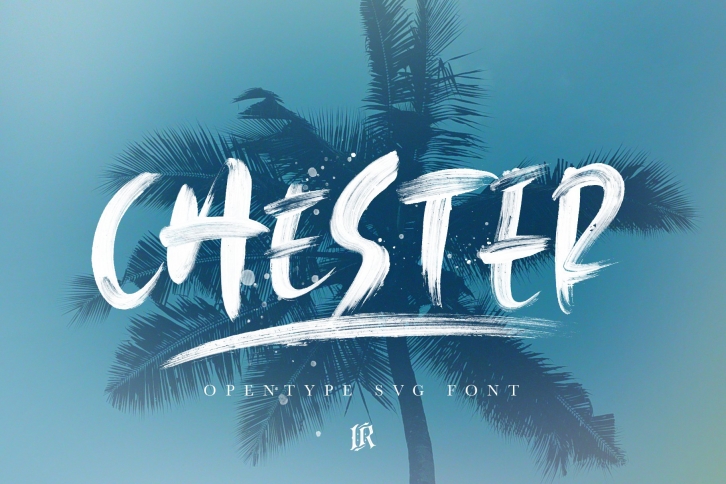
Chester SVG Font preserves all the high definition detail of the original handwritten letters. Using OpenType-SVG technology it truly looks realistic.